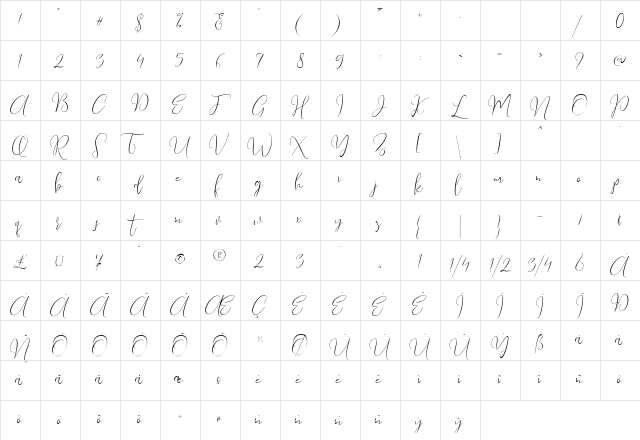
Love Surely Regular
| Foundry | Bonjour Type |
| Designer | Rachma |
Design Context for Love Surely Typeface
Love Surely is a composed and adaptable typeface that performs quietly and consistently across a wide range of design contexts.